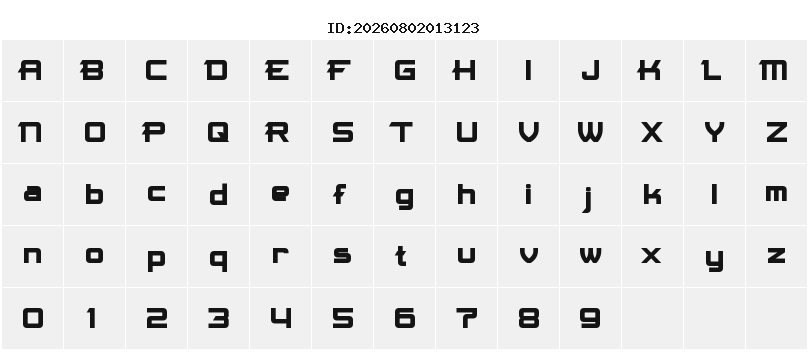
• Font Name: Maximize
• Designer: Neale Davidson
About Maximize.otf
Maximize.otf is a modern, elegant sans-serif font designed for ultimate readability and visual harmony. Perfect for branding, headlines, web design, and print materials.